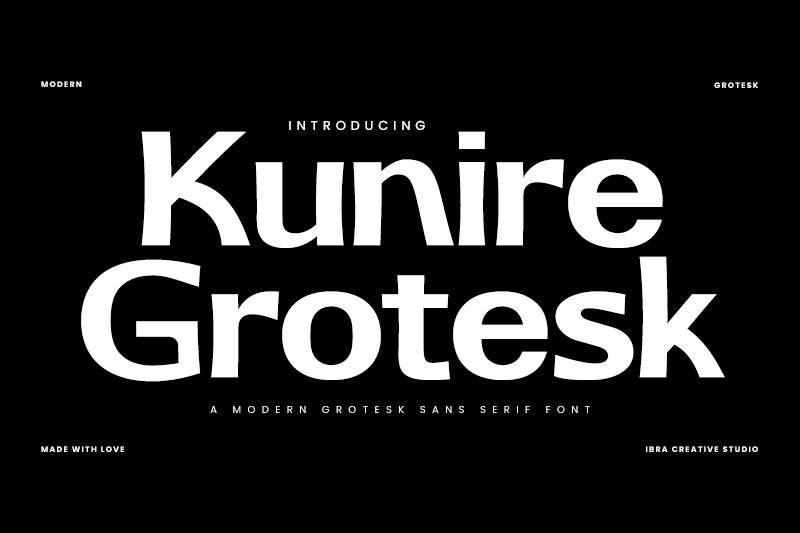
Kunire Grotesk font by Ibra Creative Studio is a modern sans serif font with geometric character shapes. The font is undeniably minimalist with a contemporary touch that allows it to be noticed, yet elegantly soft enough to blend in with other elements. Some of its letters contain unique details that make it stand out among similar fonts.
The balanced look of Kunire Grotesk meets the requirements of a modern corporate typeface, yet it also works on a promotional level. Use it in poster design, website UI/UX, mobile apps, magazines, newspapers, or other media.